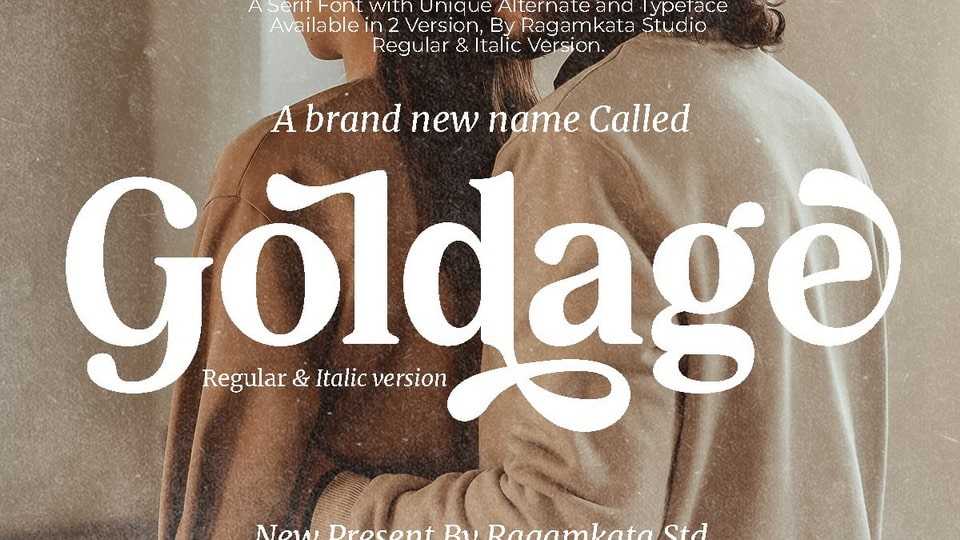
Download Goldage font, an elegant and stylish typeface that will make your design look priceless. A graceful typeface, with a perfect shape and ligatures will make your design look graceful.